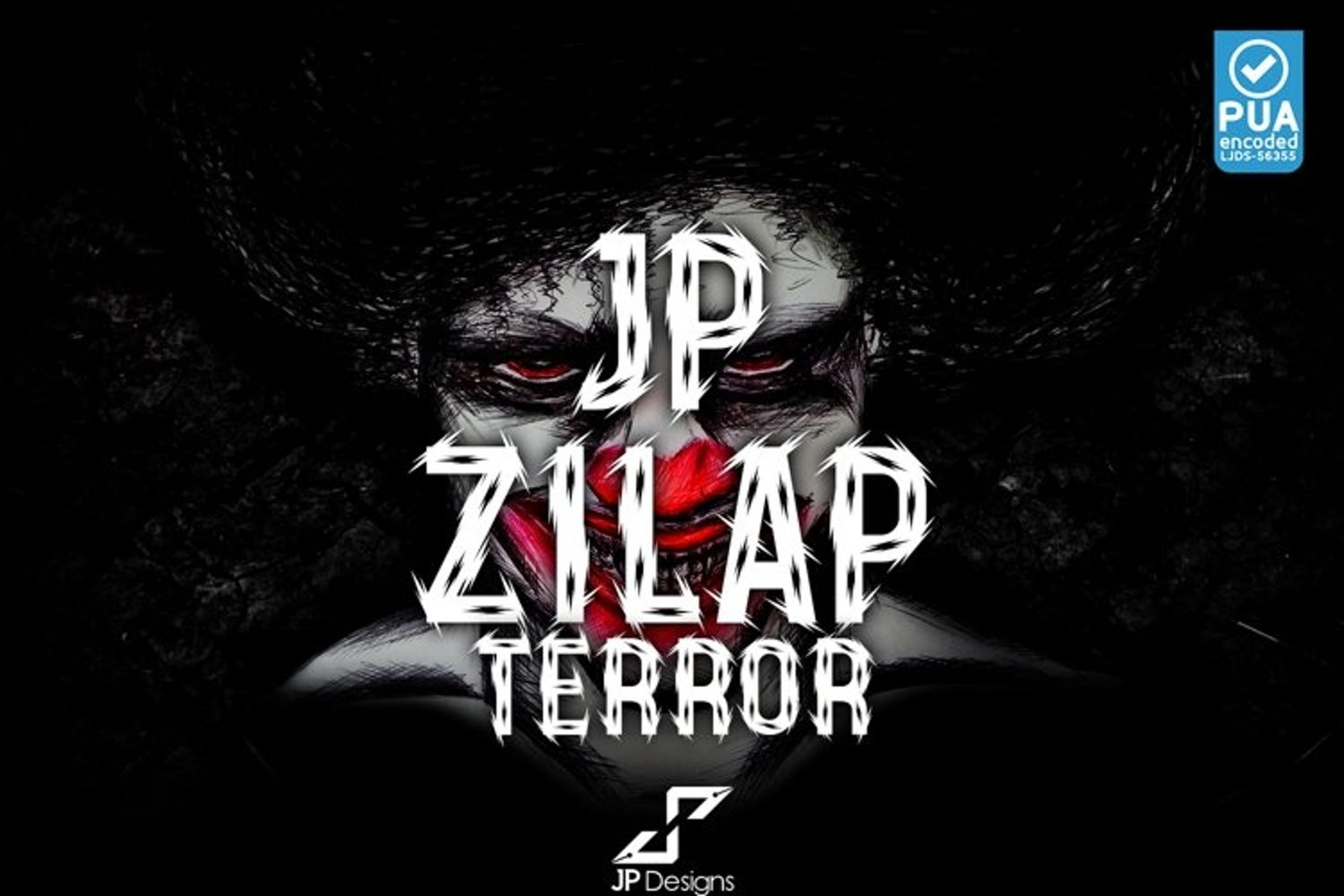
JP Zilap Terror font
Based on Zilap Font Team, JP Zilap Terror is a version similar to Jorge Pérez’s Horror from JP Desgins with its outline, as well as a barbed fence, so it is about getting hooked when you work with it because they will catch you.
A multi-dynamic style, we believe it can work in my graphic compositions.